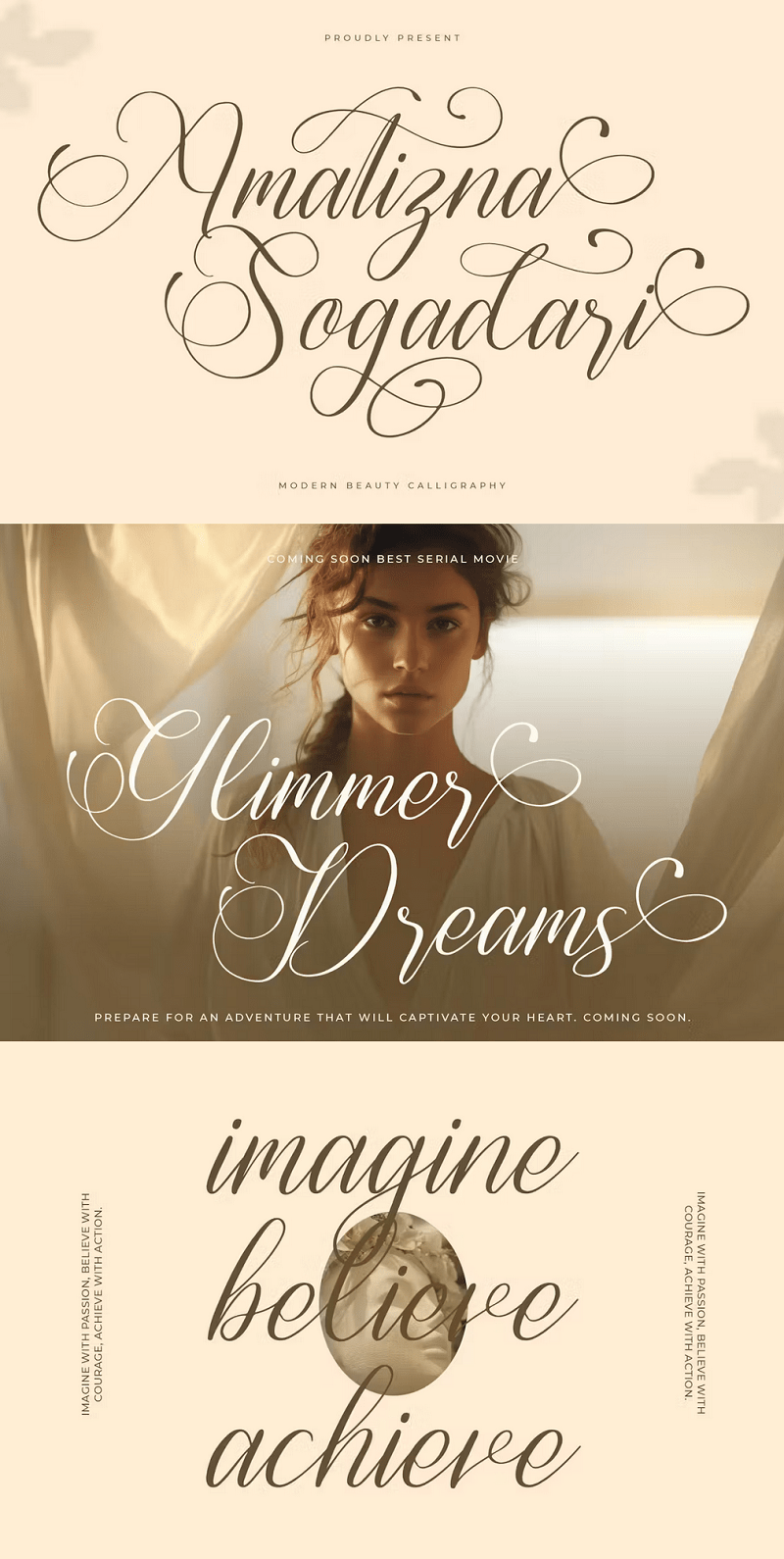
EE - Amatizna Sogadari Calligraphy Script Font DTRX7J3
Hi ladies & gentlemen, this is one of our fonts suitable to complement your digital and printed creative products. This font is perfect for posters, social media posts, branding, personal projects, etc.